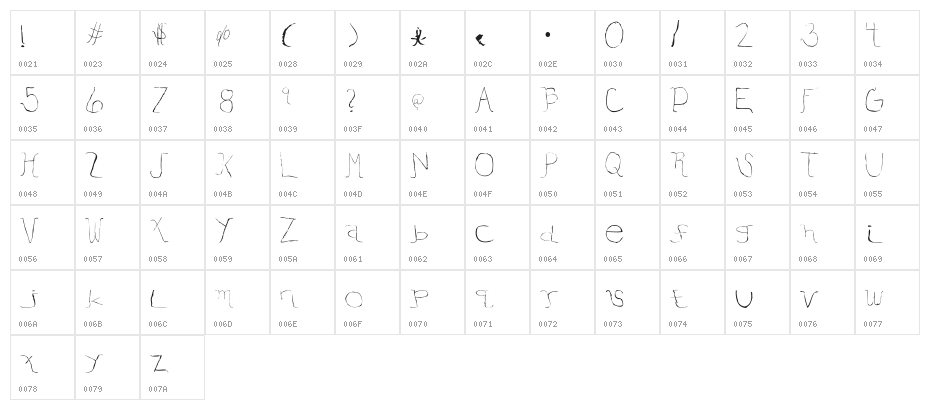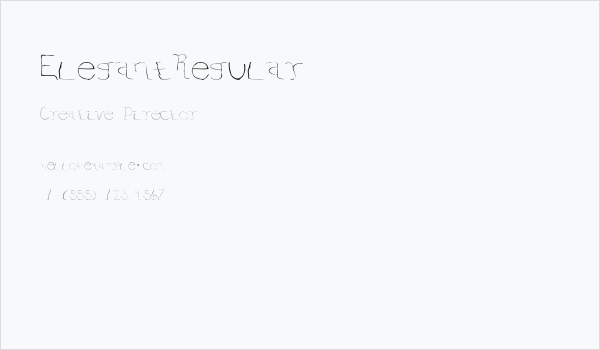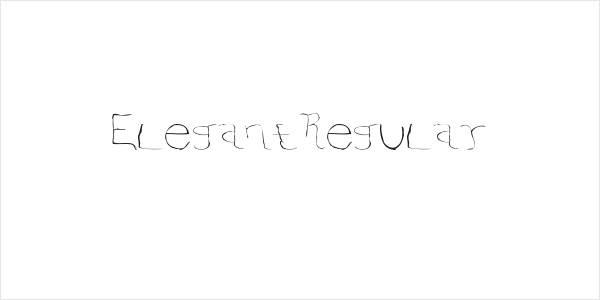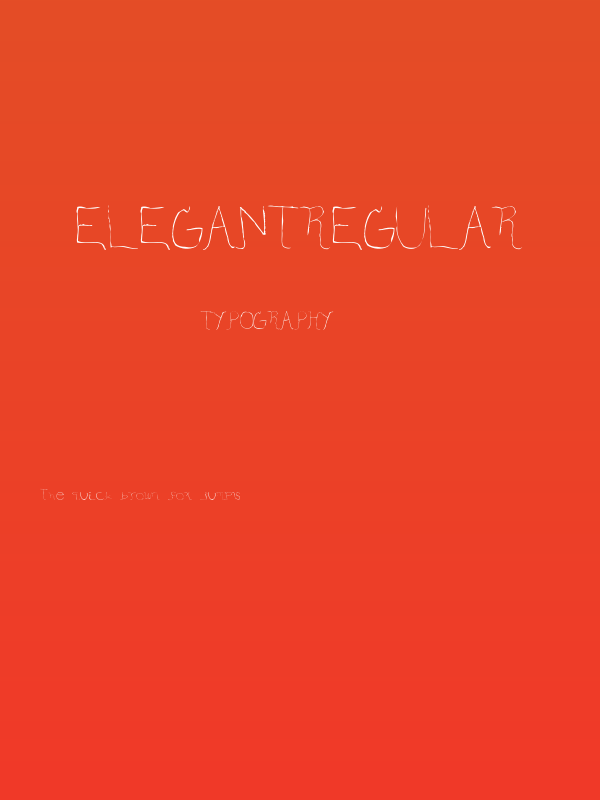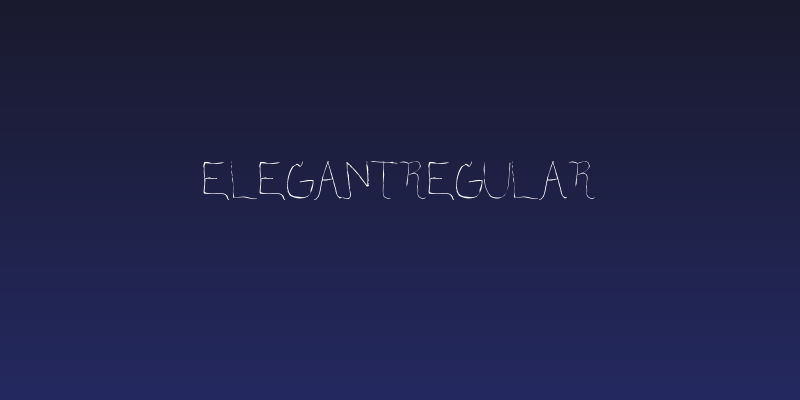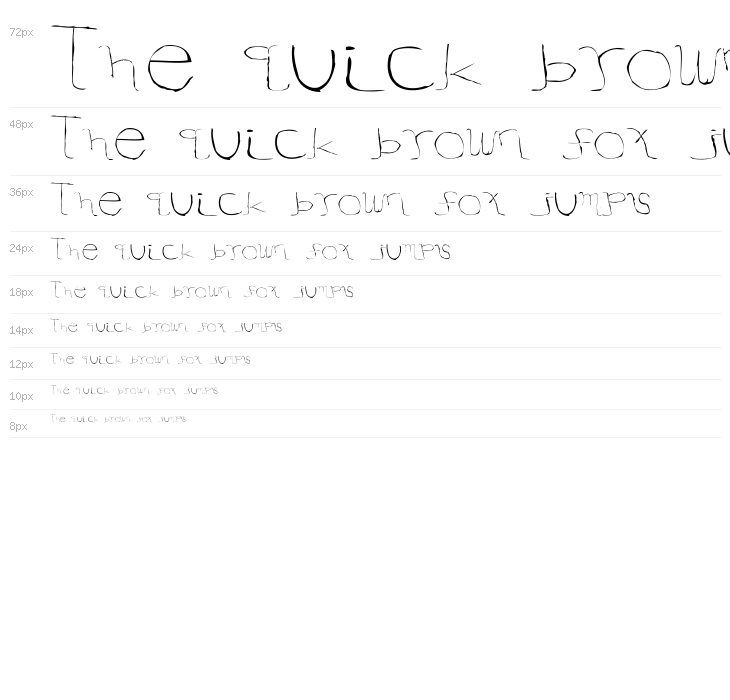
ElegantRegular Font
ElegantRegular Description
This font features a unique and artistic design, characterized by its flowing and irregular strokes that give it a hand-drawn appearance. The letters have a whimsical and organic feel, with varying thicknesses that create a dynamic visual rhythm. The uppercase and lowercase letters maintain a consistent style, while the numbers and special characters complement the overall aesthetic. The font's playful and creative nature makes it stand out, offering a fresh and unconventional look that can add personality to any project.
| Use Case | Logos, Artistic projects, Invitations |
| Proposed Projects | Ideal for creative projects such as invitations, greeting cards, artistic posters, and branding materials that require a personal touch. |